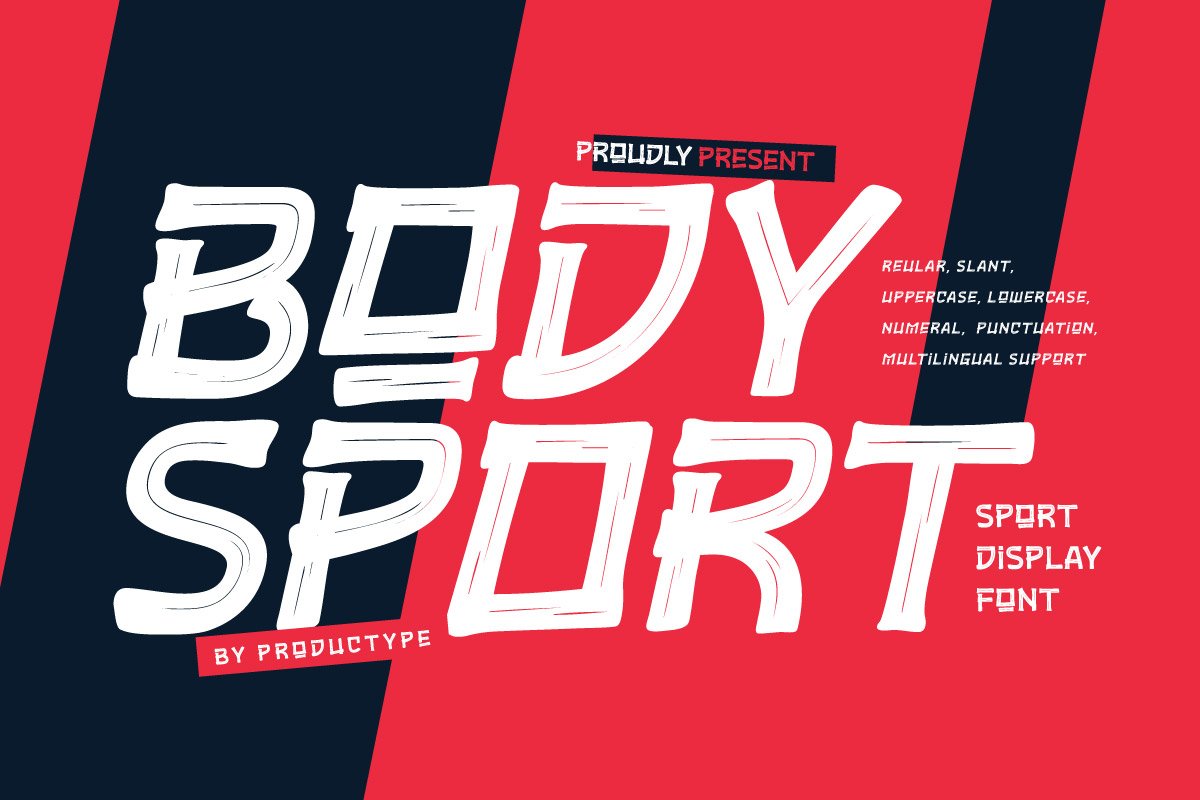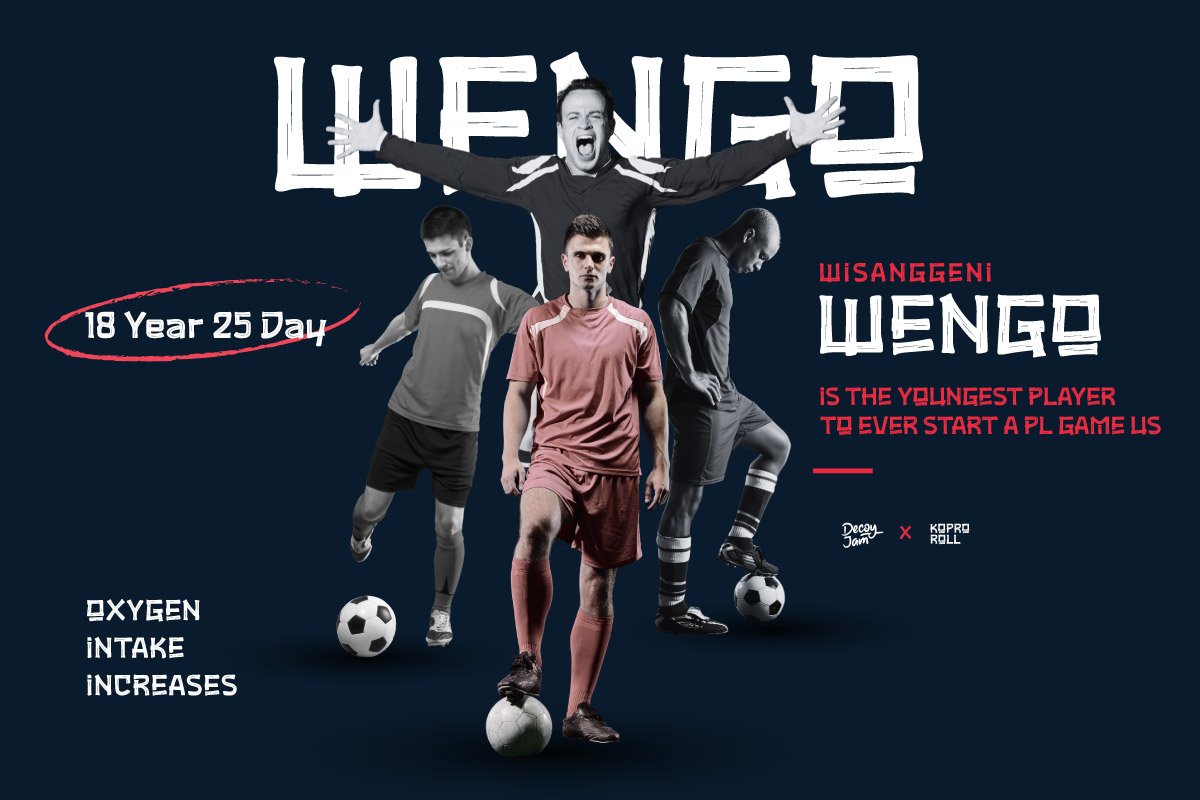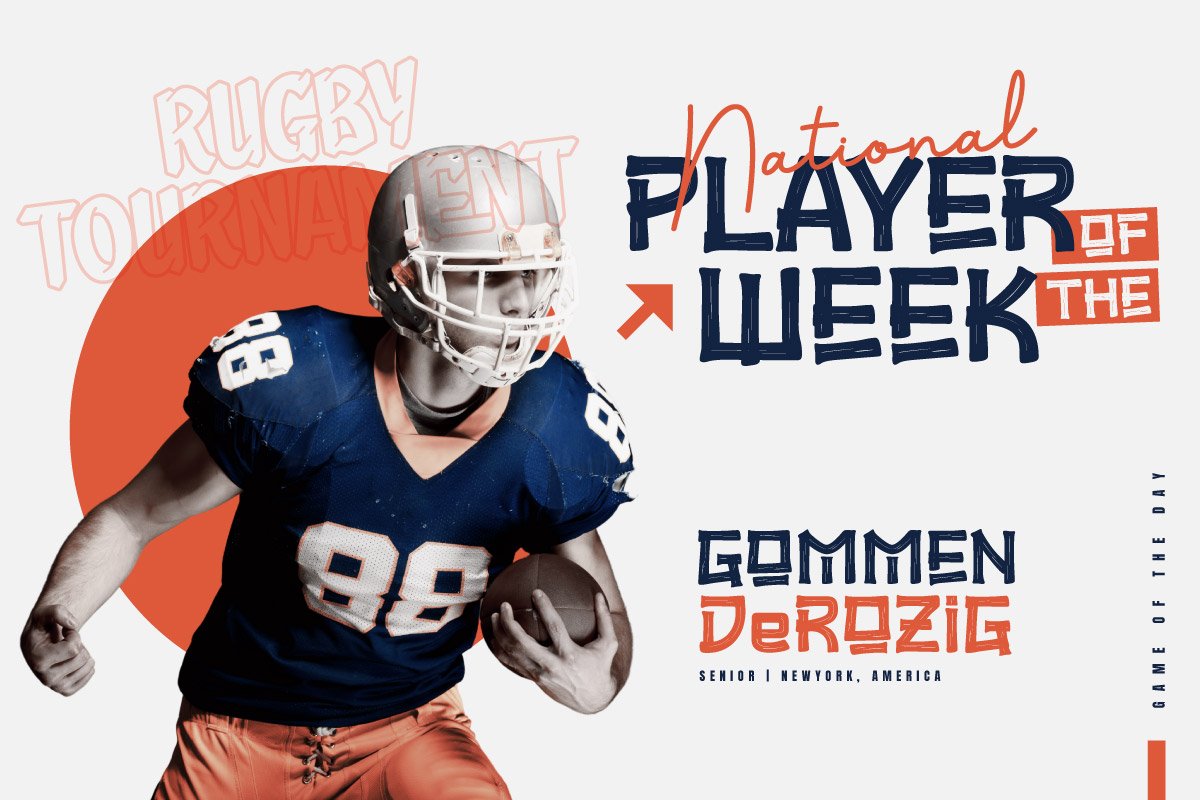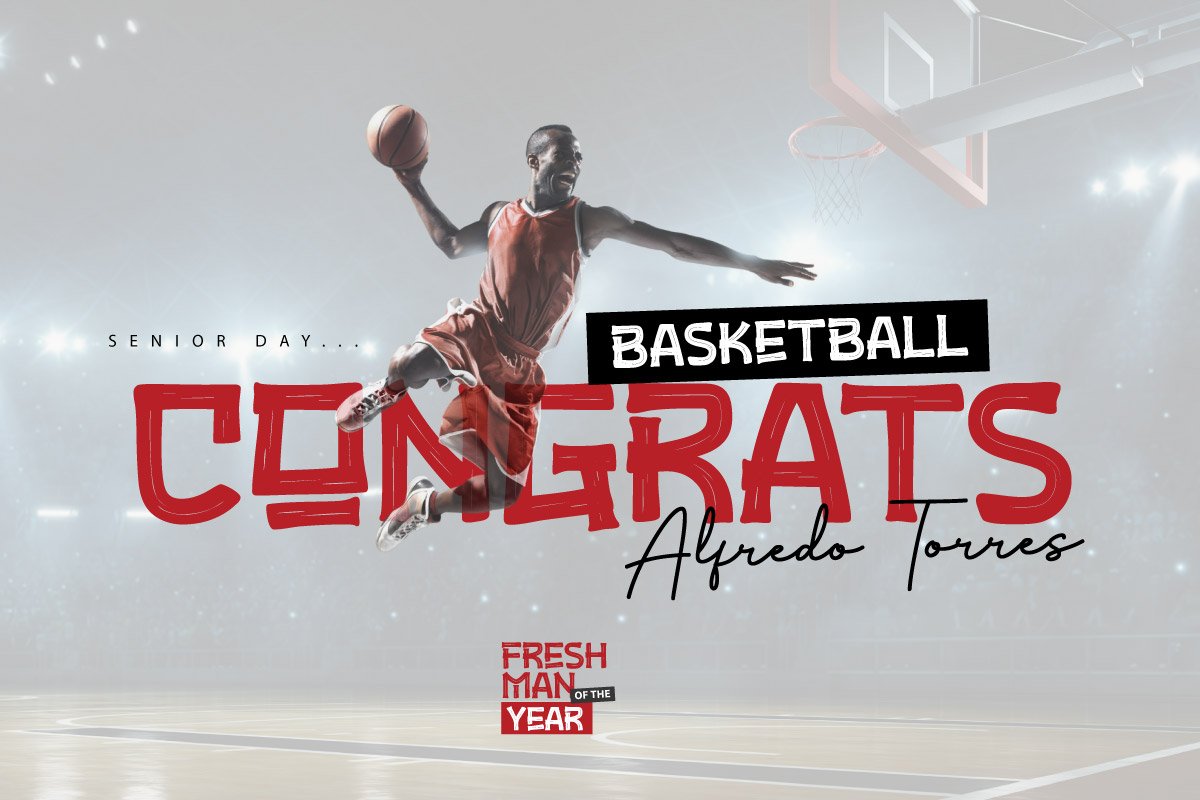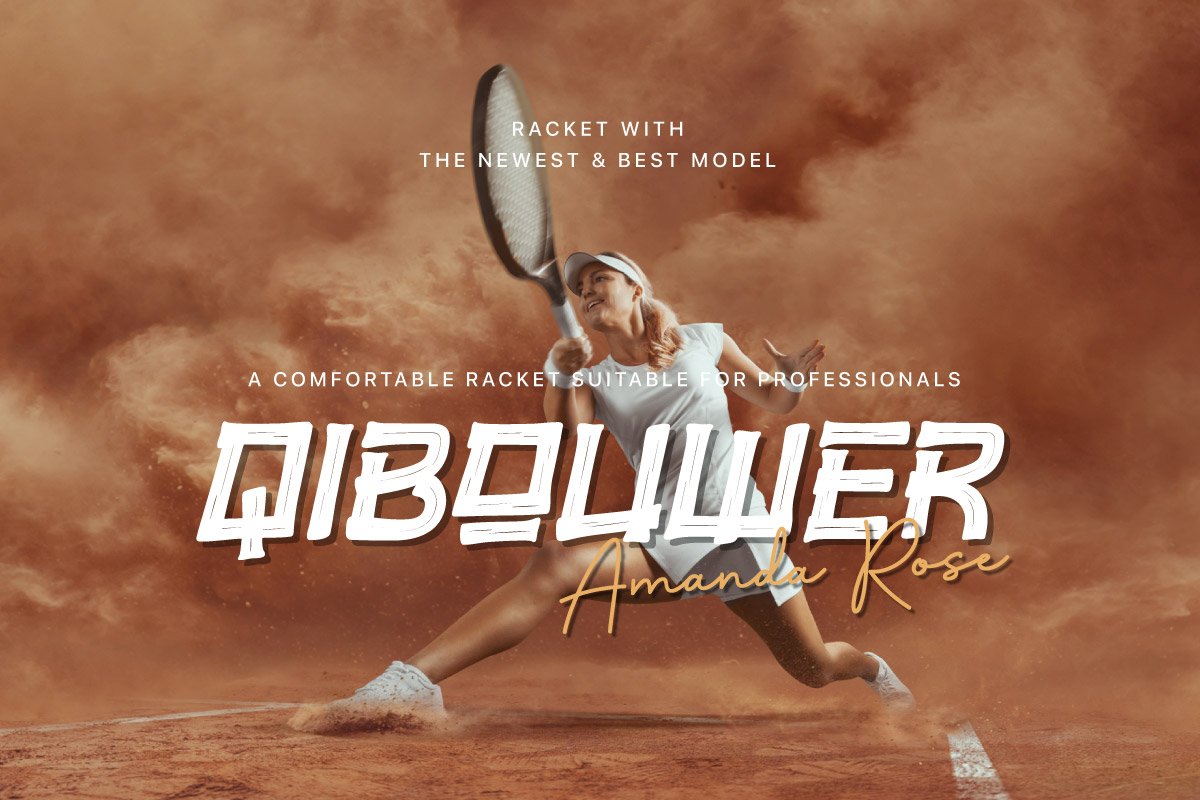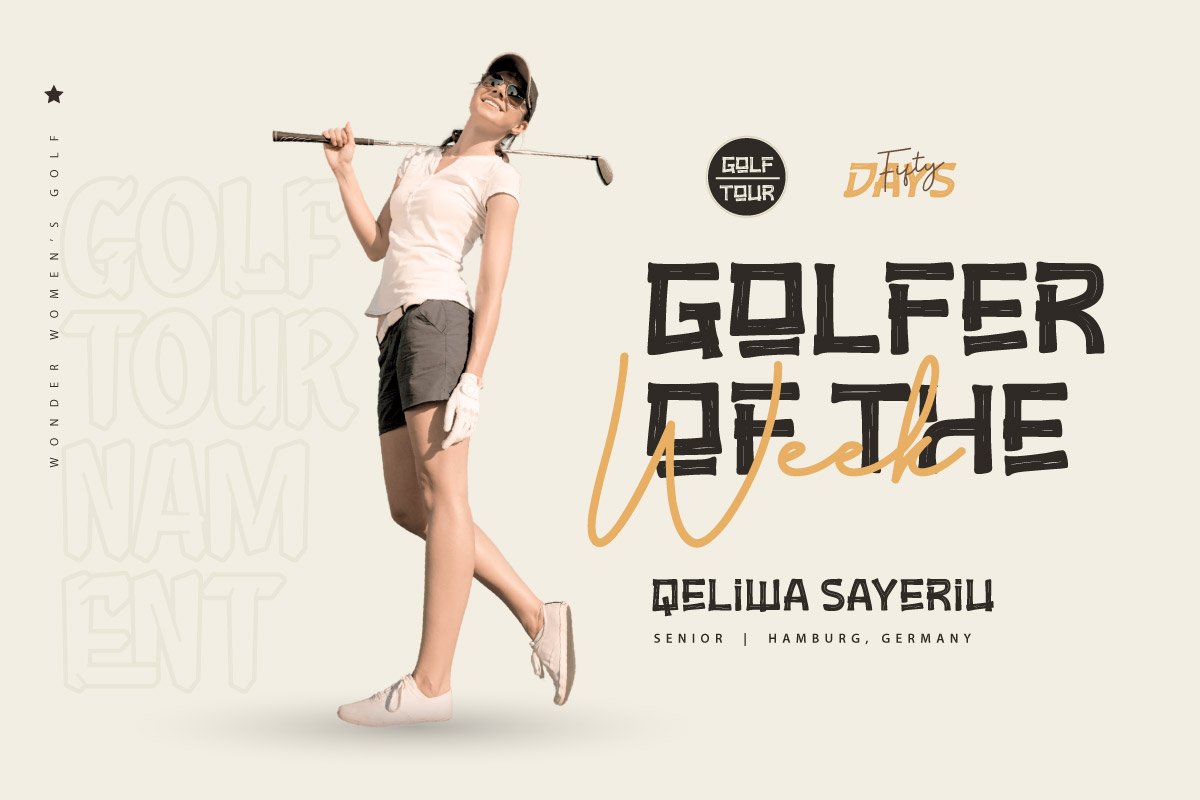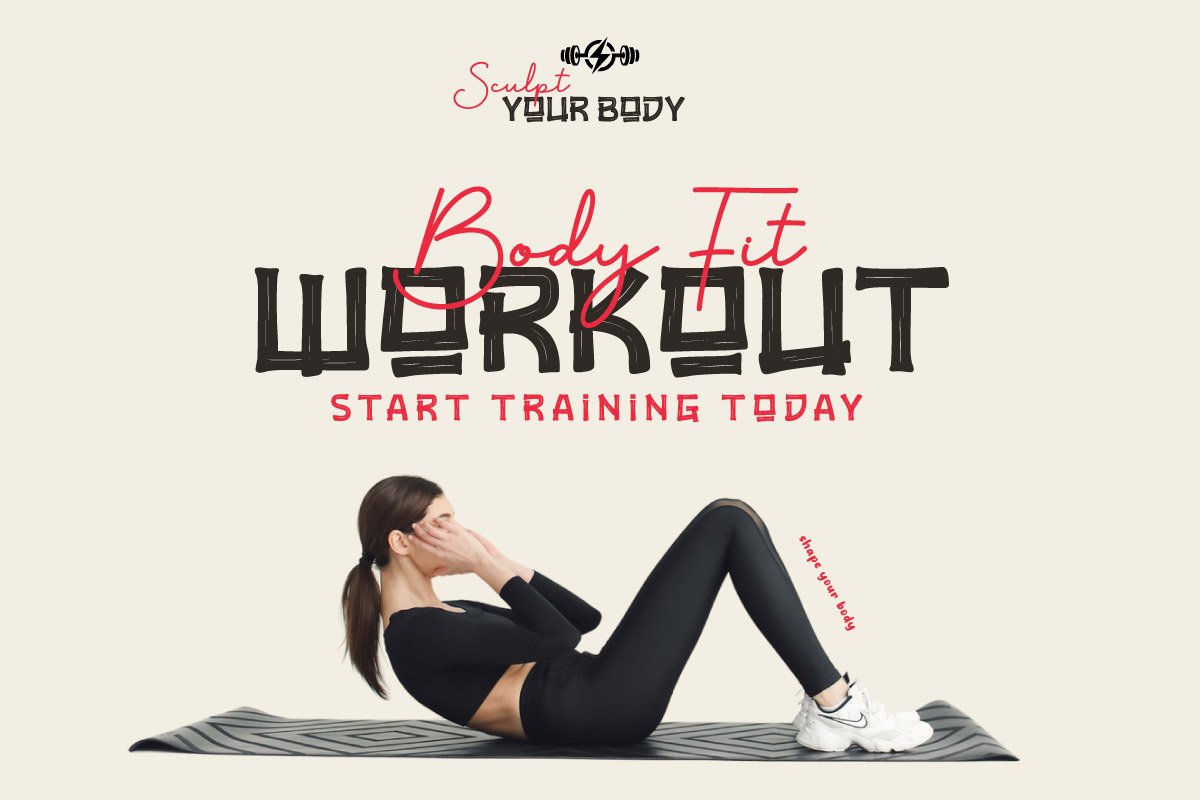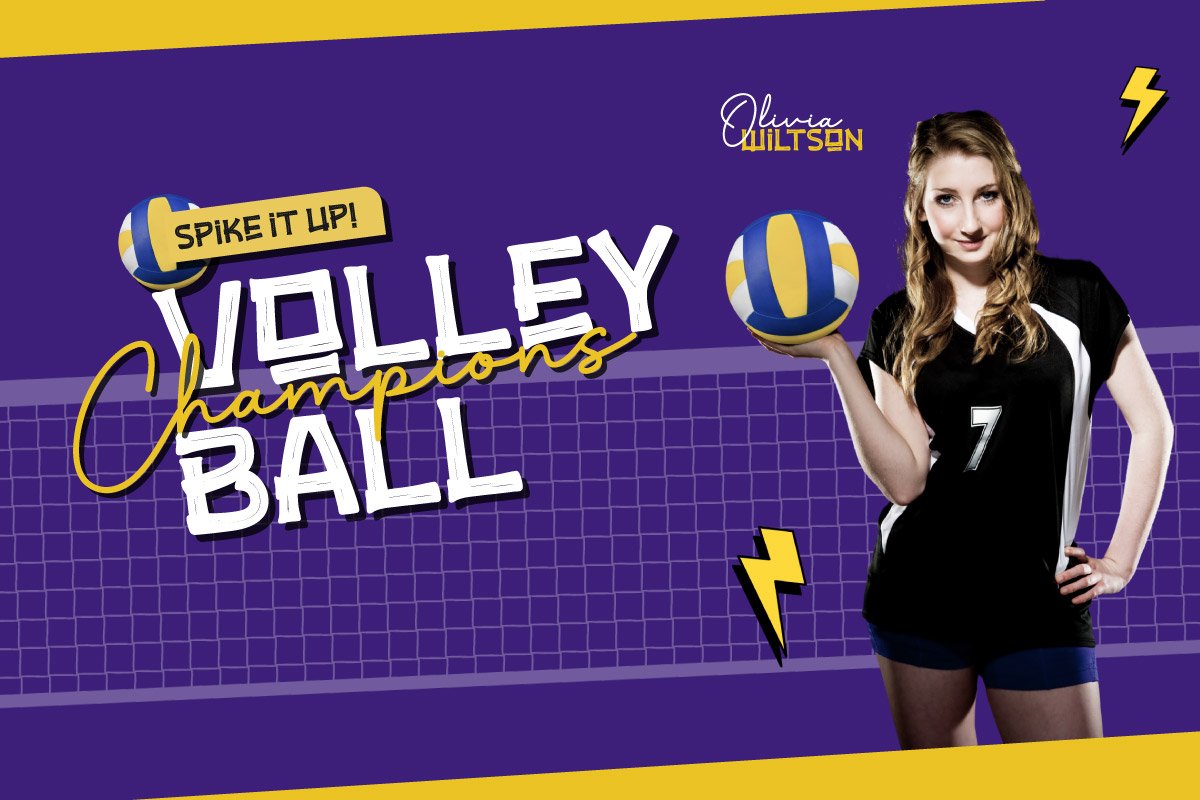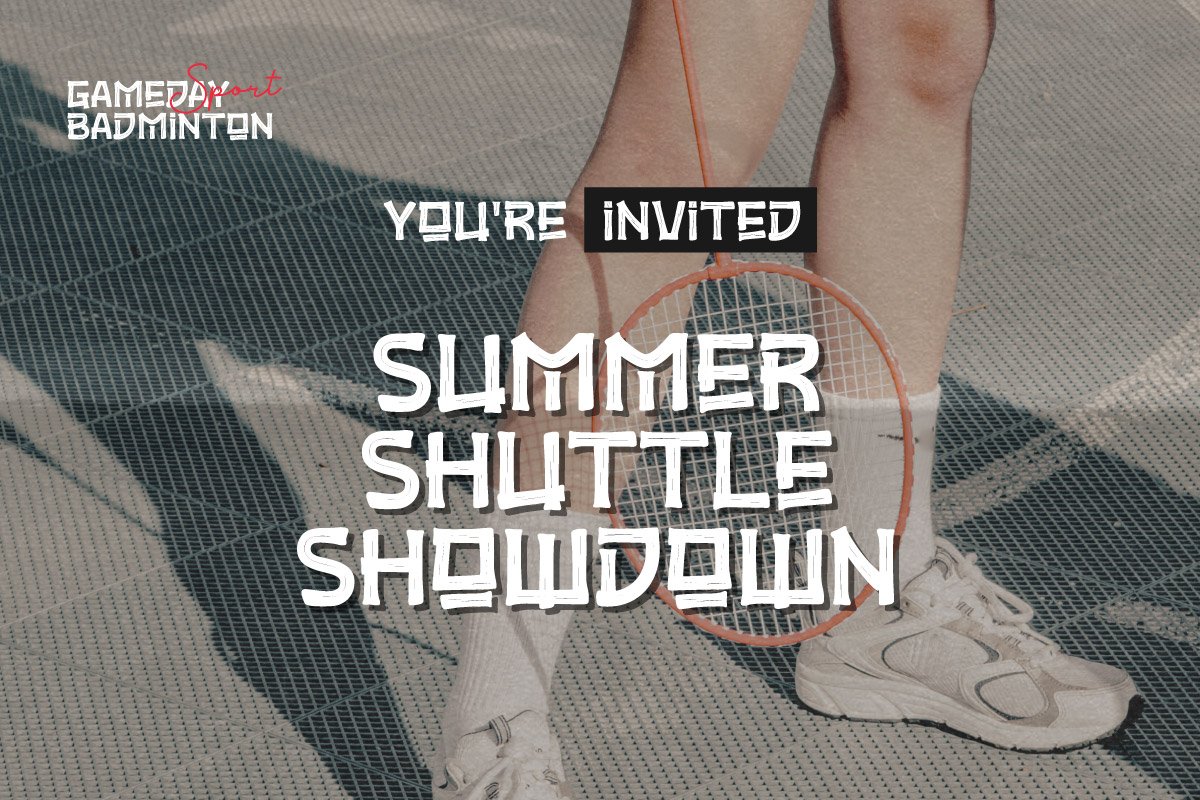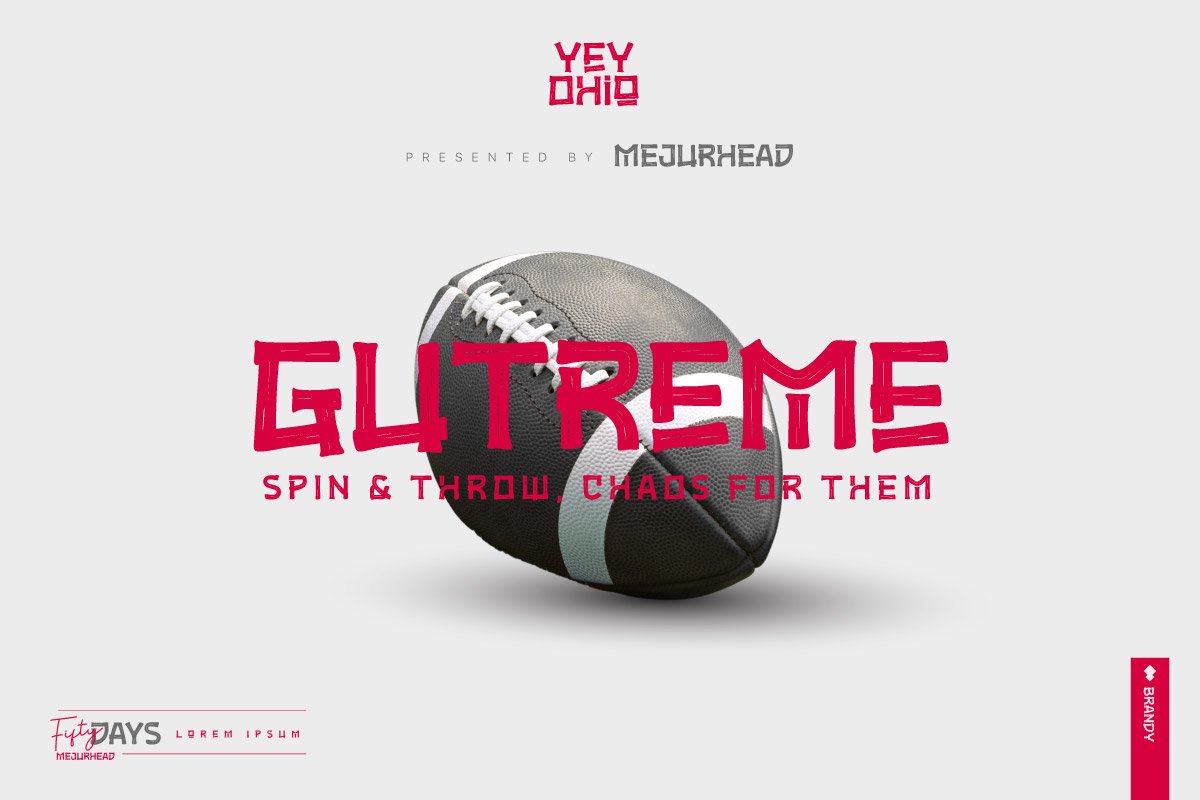
5. Bodysport – Display Font
Bodysport – Display Font
REGULAR
SLANT
Elevate the intensity of your designs with Bodysport, a Display Sport Font that embodies strength, speed, and energy. Perfect for sports branding, team logos, athletic apparel, and event posters, Bodysport features bold, dynamic letterforms that capture the essence of competition and action. Each character is crafted with precision to ensure your message is both powerful and highly visible, making it the ideal choice for projects that need to inspire and motivate.
Bodysport’s design is rooted in the world of athletics, with sharp angles and strong lines that reflect the determination and resilience found in sports. Whether you’re designing for a professional sports team, a fitness brand, or a high-energy event, Bodysport delivers the impact you need. Its versatility allows it to shine in both print and digital formats, ensuring your designs look fierce and compelling across all platforms.
Bring the spirit of sports to your designs with Bodysport, the font that drives intensity and captures the thrill of the game.